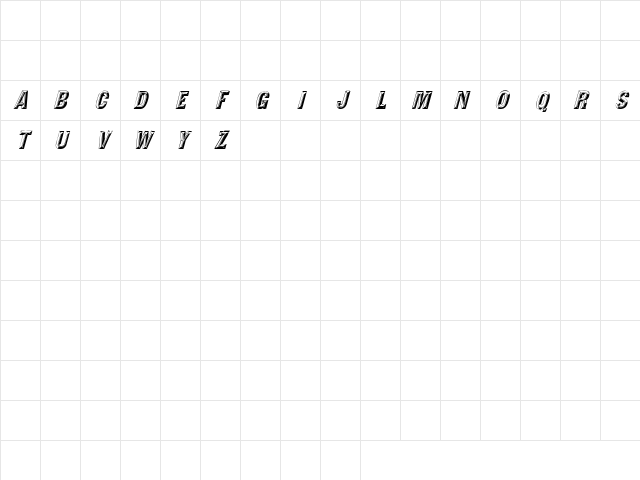
Complete Arroyo 6 Italic glyph index. Displaying only characters natively supported by Arroyo 6 Italic font.
Arroyo 6 is a composed and adaptable typeface that performs quietly and consistently across a wide range of design contexts. The slanted form adds forward momentum and visual energy.
Pro Tip: Use Arroyo 6 for emphasis, pull quotes, and subheadings where its slanted energy can add rhythm to the layout.